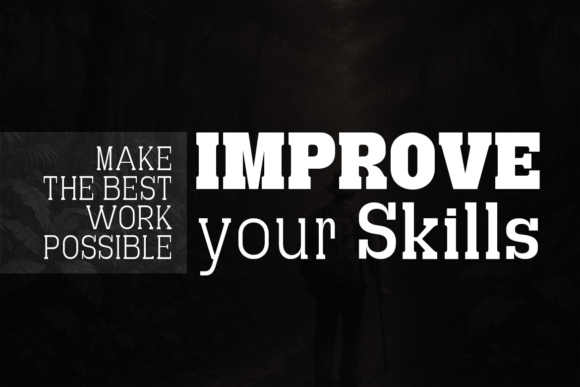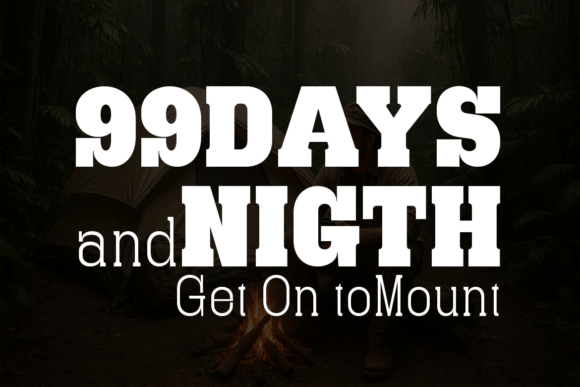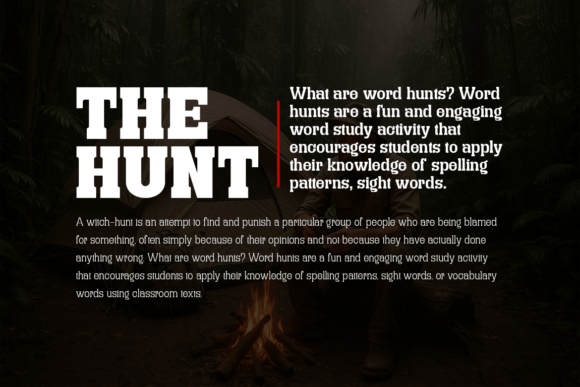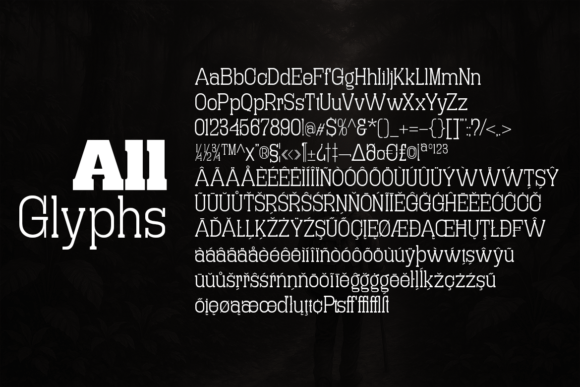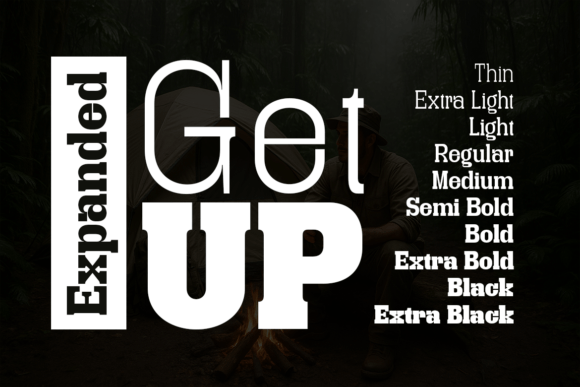
Introducing GetUp Expanded Font: Make a Grand Entrance with Bold Authority
In the world of typography, fonts play a crucial role in conveying the tone and personality of a brand. For designers and crafters looking to make a statement, the GetUp Expanded font is an excellent choice. This wide-bodied serif font is designed to fill the frame with confidence, delivering bold authority through its wide proportions and heavy slab serifs.
The Power of GetUp Expanded
GetUp Expanded is part of the Get Up font family, but it takes the original design to new heights by stretching the letterforms to create a stable, cinematic presence. This font is perfect for hero sections on websites, premium product labels, and bold automotive branding where a sense of power and reliability is essential. The Get Up Expanded font commands respect through its wide stance and heavy serifs, making it an ideal choice for designers looking to create a lasting impression.
Key Features of GetUp Expanded
- 10 Weights: GetUp Expanded offers a range of 10 weights, from Thin to Extra Black, providing designers with a versatile range of options to suit their design needs.
- Wide Proportions: The font’s wide proportions create a sense of grandeur, making it perfect for headlines, titles, and bold statements.
- Heavy Slab Serifs: The heavy slab serifs add a touch of sophistication and elegance, making GetUp Expanded suitable for luxury brands and high-end designs.
Design Applications for GetUp Expanded
GetUp Expanded is a versatile font that can be used in a variety of design applications, including:
- Logo Design: Use GetUp Expanded for “one-word” logos or massive exhibition graphics to create an unforgettable visual anchor.
- Automotive Branding: The font’s bold and powerful presence makes it an excellent choice for automotive brands looking to convey a sense of strength and reliability.
- Luxury Brands: GetUp Expanded’s sophisticated and elegant design makes it suitable for high-end luxury brands, such as fashion houses and premium product labels.
- Web Design: Use GetUp Expanded for hero sections on websites to create a bold and attention-grabbing introduction.
Pairing GetUp Expanded with Other Design Elements
GetUp Expanded pairs exceptionally well with minimal layouts, where its expansive width can serve as the primary design element. When paired with simple and clean design elements, GetUp Expanded can create a striking visual contrast that draws attention and leaves a lasting impression.
Tips for Using GetUp Expanded
- Use it sparingly: Due to its bold and attention-grabbing nature, it’s best to use GetUp Expanded sparingly to avoid overwhelming the design.
- Experiment with weights: Try out different weights of GetUp Expanded to find the perfect balance for your design.
- Pair with simple elements: Pair GetUp Expanded with simple and clean design elements to create a striking visual contrast.
GetUp Expanded is a powerful and versatile font that can add a touch of bold authority to any design. With its wide proportions, heavy slab serifs, and range of 10 weights, this font is perfect for designers and crafters looking to make a statement. Whether you’re designing for a luxury car brand or a high-fashion house, GetUp Expanded is an excellent choice for creating a lasting impression.